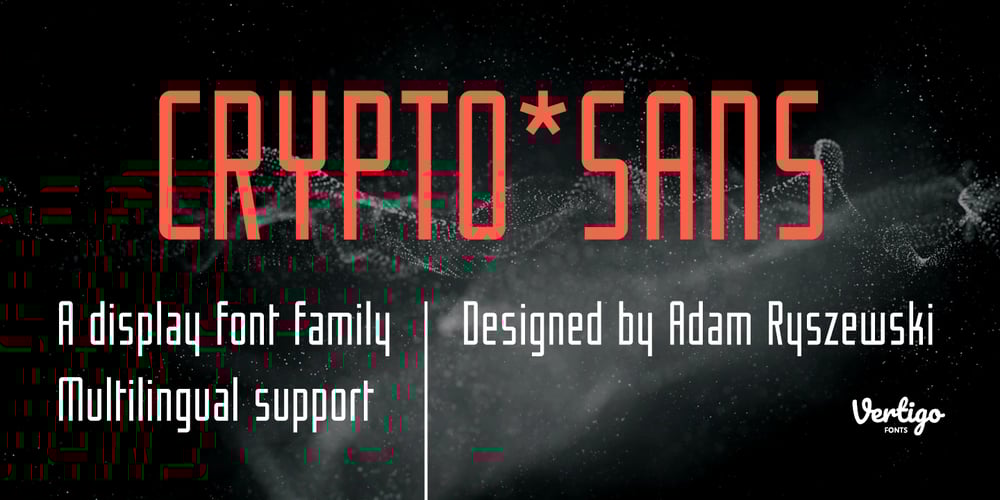
Crypto Font Family was designed by Adam Ryszewski and published by Vertigo. Crypto contains 2 styles and family package options. Crypto is a narrow, sans serif, geometric, display font with two weights. It works well for modern, contemporary projects, logotypes, films, posters, billboards, press advertisements, websites, packaging. It provides multilingual support.